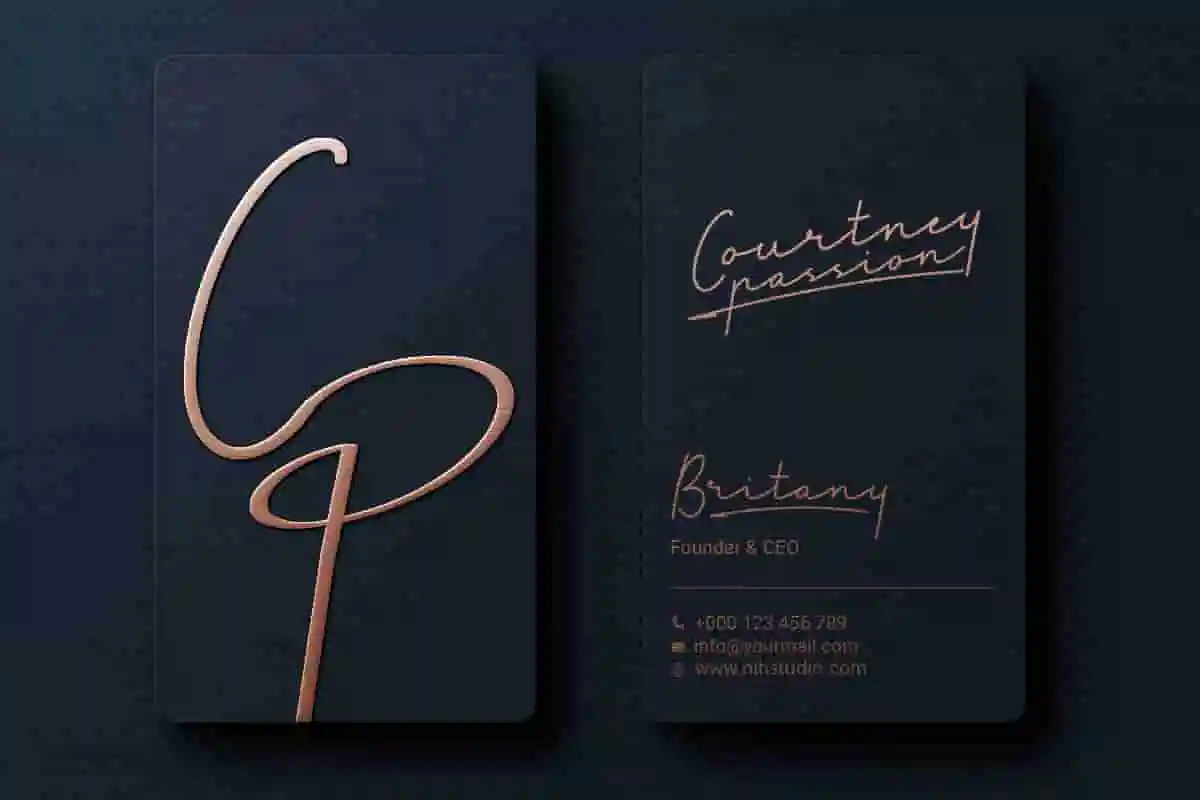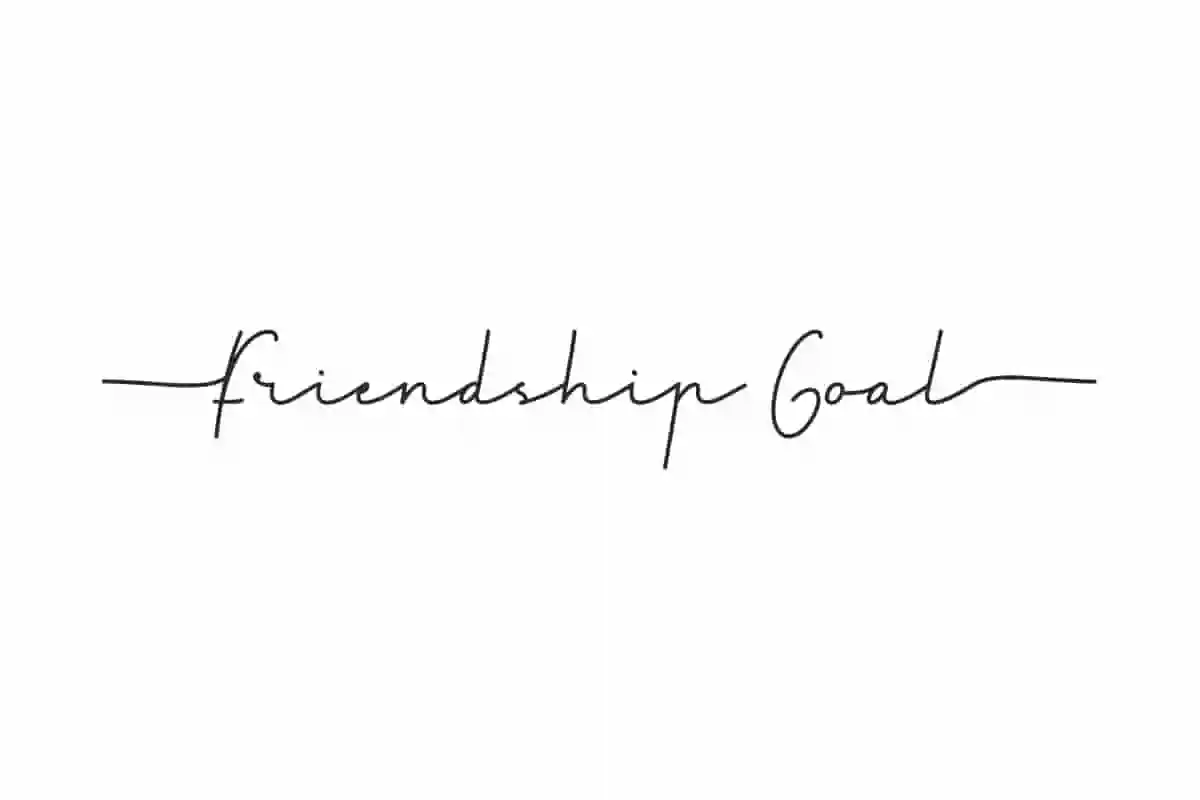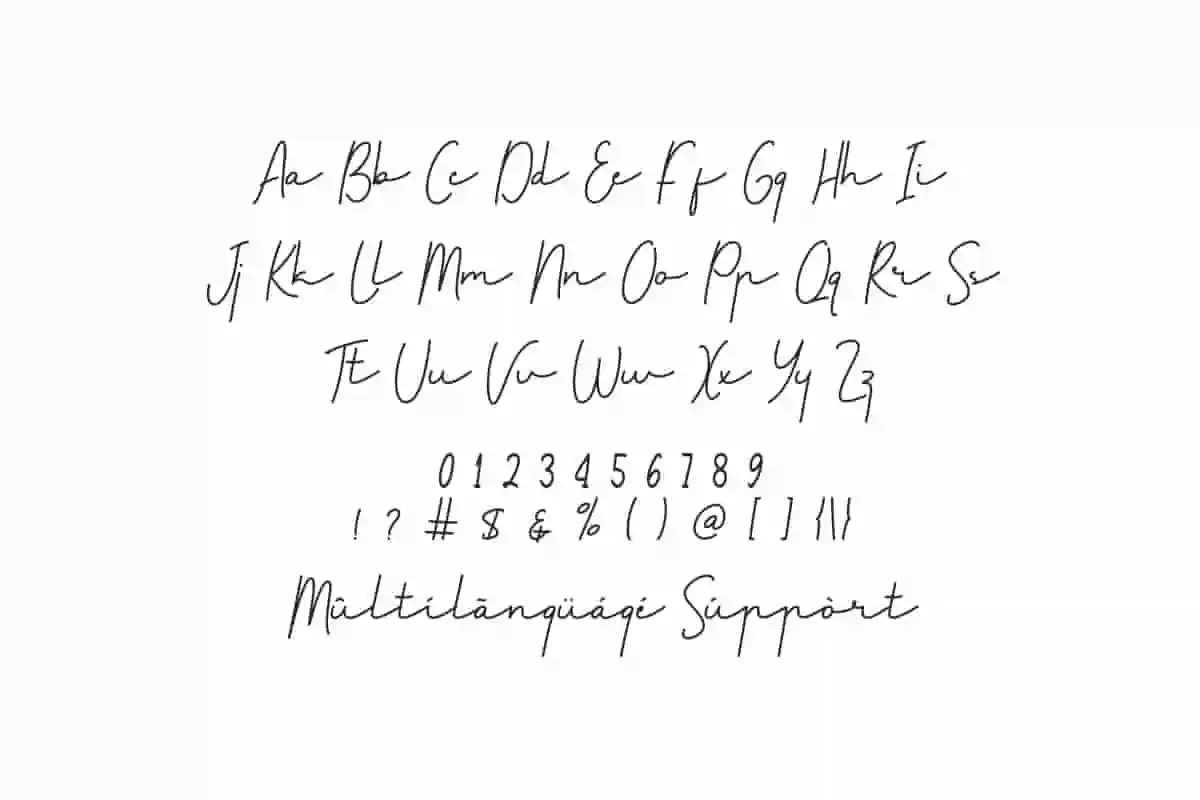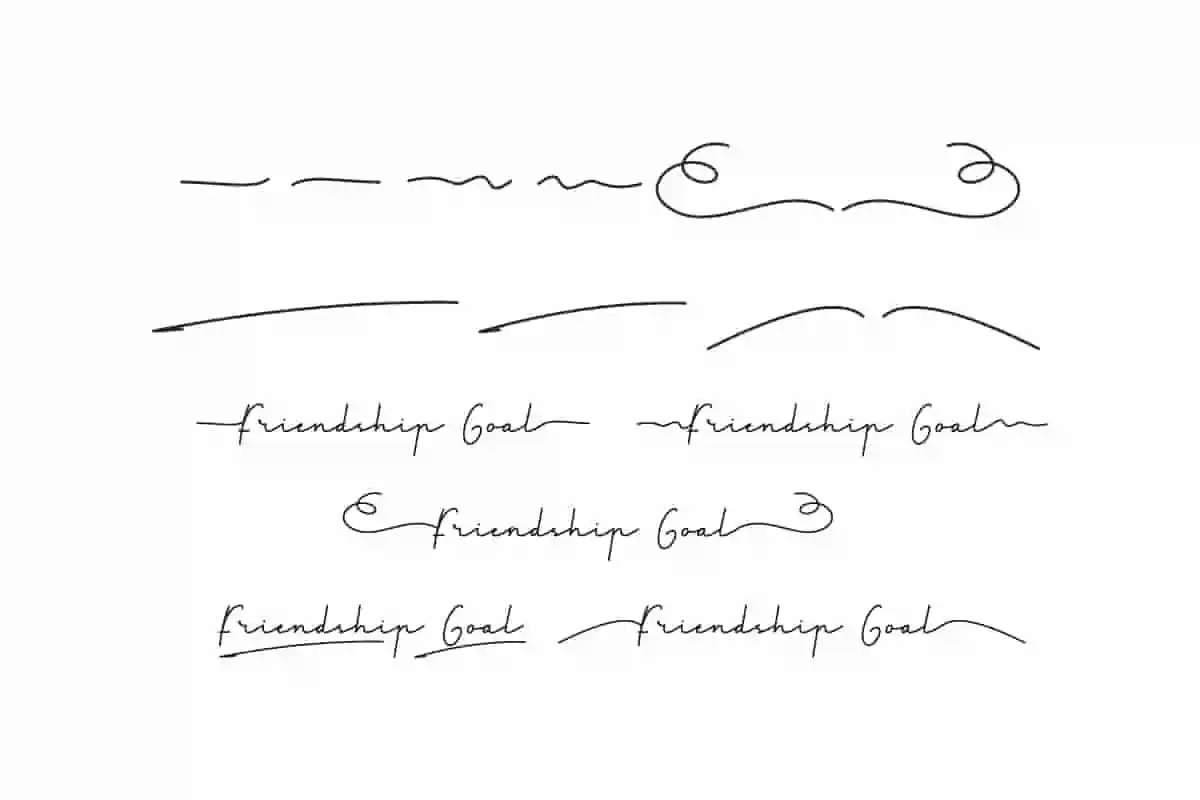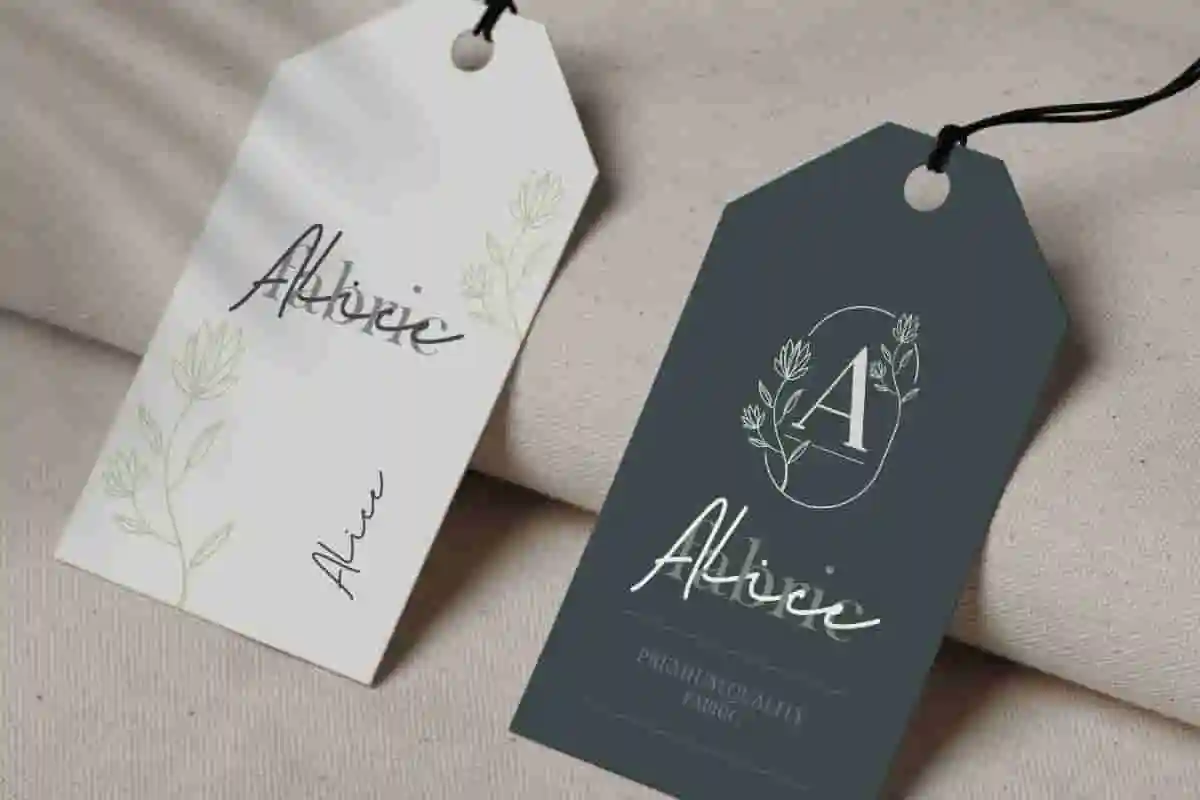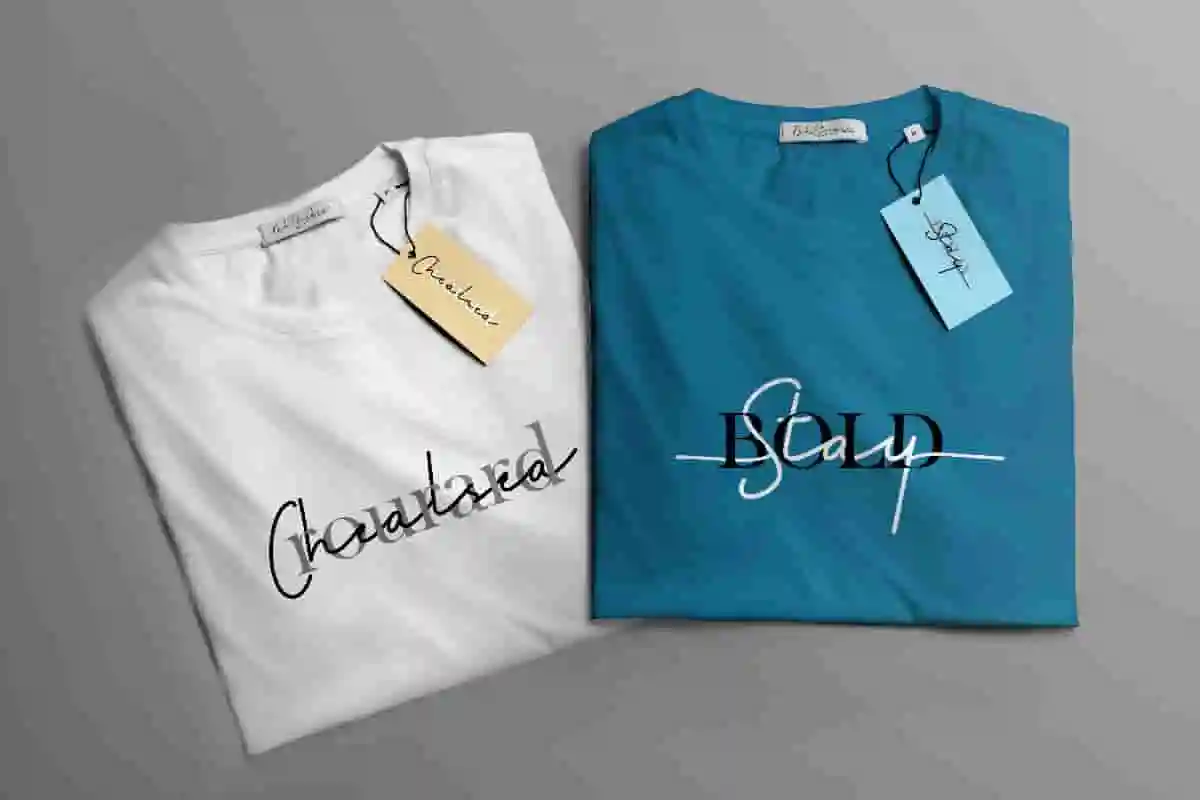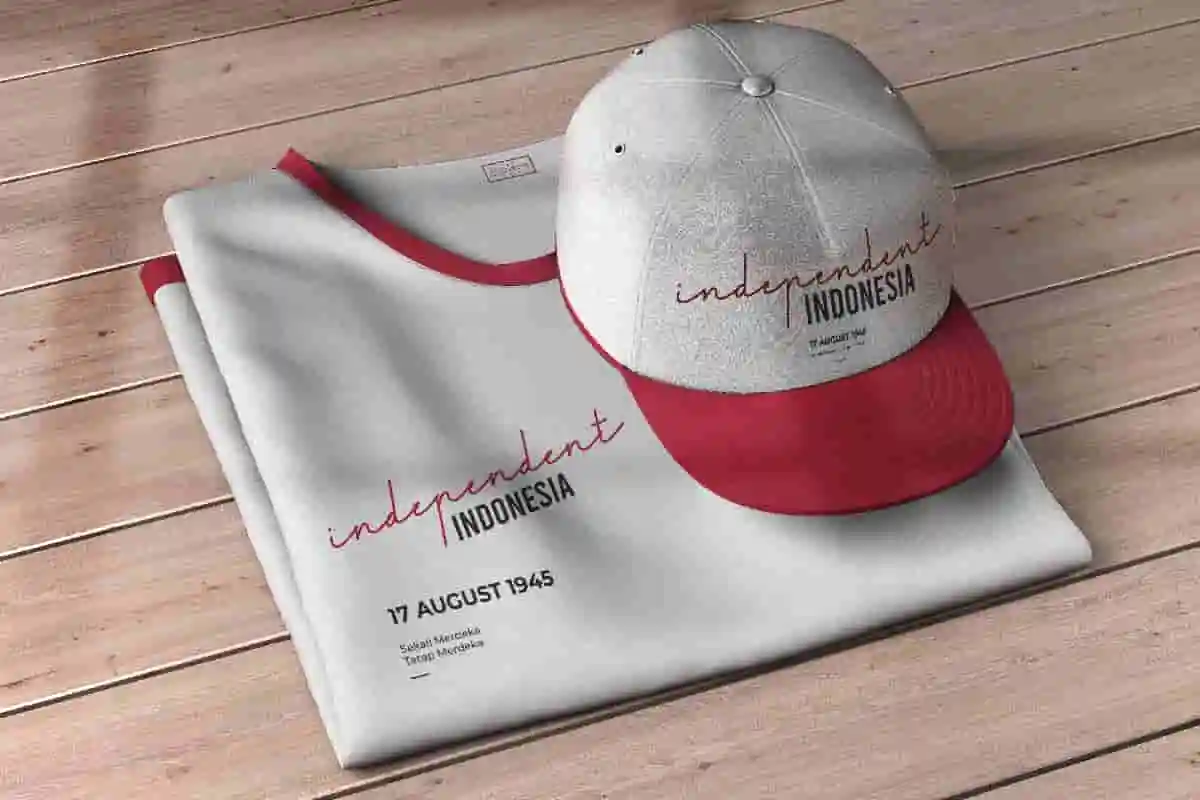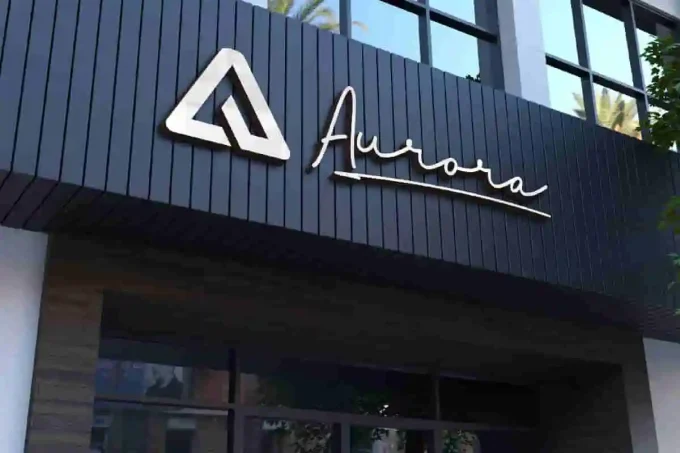
Friendship Goal Font is a professional signature font by NihStudio. Friendship Goal Signature Font was Made for casual, wedding, business, professional, video, photography etc
Friendship Goal Font – Elegant Signature Script by NihStudio
Friendship Goal is a stylish and elegant signature script font created by our talented designers Shalsa and Sarah from NihStudio, Indonesia. Released in 2020, this handcrafted font features a timeless, vintage, and sophisticated brush style—perfect for giving your projects a personal and professional touch.
Friendship Goal offers a classic handwritten feel with stunning letterforms, carefully kerned and spaced for perfect readability. It’s ideal for a wide range of design applications, including:
Branding & Logo Design
Stationery & Business Cards
Invitations & Wedding Themes
Flyers, Brochures, Signage
Elegant Product Packaging
This signature font matches perfectly with industries such as:
Wedding & Event Planning
Real Estate & Architecture
Law Firms & Corporate Identity
Florists & Gardening
Hotels, Travel Agencies, Musicians, and Makeup Artists
Let your designs speak with style—use Friendship Goal, the signature font that brings elegance and professionalism to every project.